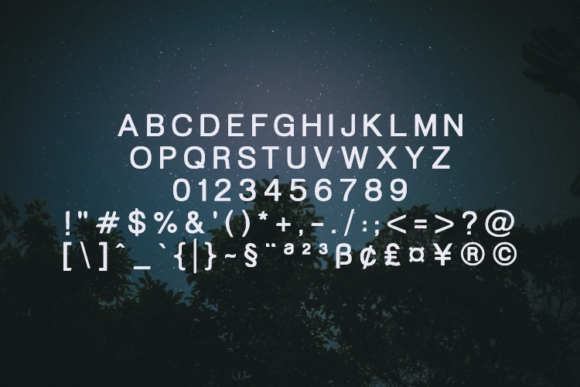
Broomxon Font: Elevate Your Designs with a Modern Sans Serif
In the world of typography, fonts play a crucial role in conveying messages, setting tones, and creating visual identities. For designers and crafters, finding the perfect font can be a daunting task. However, if you’re looking for a modern and powerful sans serif font that can elevate your designs, look no further than Broomxon Font. In this article, we’ll explore the features, benefits, and uses of Broomxon, and why it’s a must-have for any designer or crafter.
What is Broomxon Font?
Broomxon is a contemporary sans serif font designed to make a statement. Its clean lines, precise curves, and bold strokes make it perfect for a wide range of applications, from digital media to print materials. Broomxon is a versatile font that can be used in various contexts, including busy backgrounds, standalone headlines, and body text.
Key Features of Broomxon Font
• Modern and Powerful: Broomxon boasts a modern and powerful design that commands attention.
• Sans Serif: The font features a clean and minimalist sans serif design, making it perfect for digital media and modern designs.
• High Versatility: Broomxon can be used in various contexts, from large headlines to body text, and on different backgrounds.
• Precise Curves and Bold Strokes: The font’s precise curves and bold strokes give it a unique and distinctive look.
Benefits of Using Broomxon Font
So, why choose Broomxon Font for your designs? Here are some benefits of using this versatile font:
• Enhance Readability: Broomxon’s clean design and precise curves make it easy to read, even on busy backgrounds or small sizes.
• Make a Statement: The font’s bold strokes and modern design make it perfect for headlines and titles that demand attention.
• Increase Brand Identity: Broomxon can help create a unique visual identity for your brand, setting you apart from the competition.
• Save Time: With Broomxon, you can create stunning designs quickly and efficiently, thanks to its versatility and ease of use.
Who Can Benefit from Broomxon Font?
Broomxon Font is perfect for:
• Graphic Designers: Broomxon is a valuable addition to any graphic designer’s toolkit, offering a versatile font for various projects.
• Crafters: Crafters can use Broomxon to create stunning visual projects, from signs and posters to cards and invitations.
• Digital Marketers: Broomxon can help digital marketers create eye-catching ads, social media posts, and website content.
• Small Business Owners: Small business owners can use Broomxon to create a unique visual identity for their brand.
In conclusion, Broomxon Font is a modern and powerful sans serif font that can elevate your designs and help you create stunning visual projects. Its versatility, readability, and unique design make it perfect for designers, crafters, and small business owners. With Broomxon, you can enhance your brand identity, make a statement, and save time. So why wait? Download Broomxon Font today and take your designs to the next level!